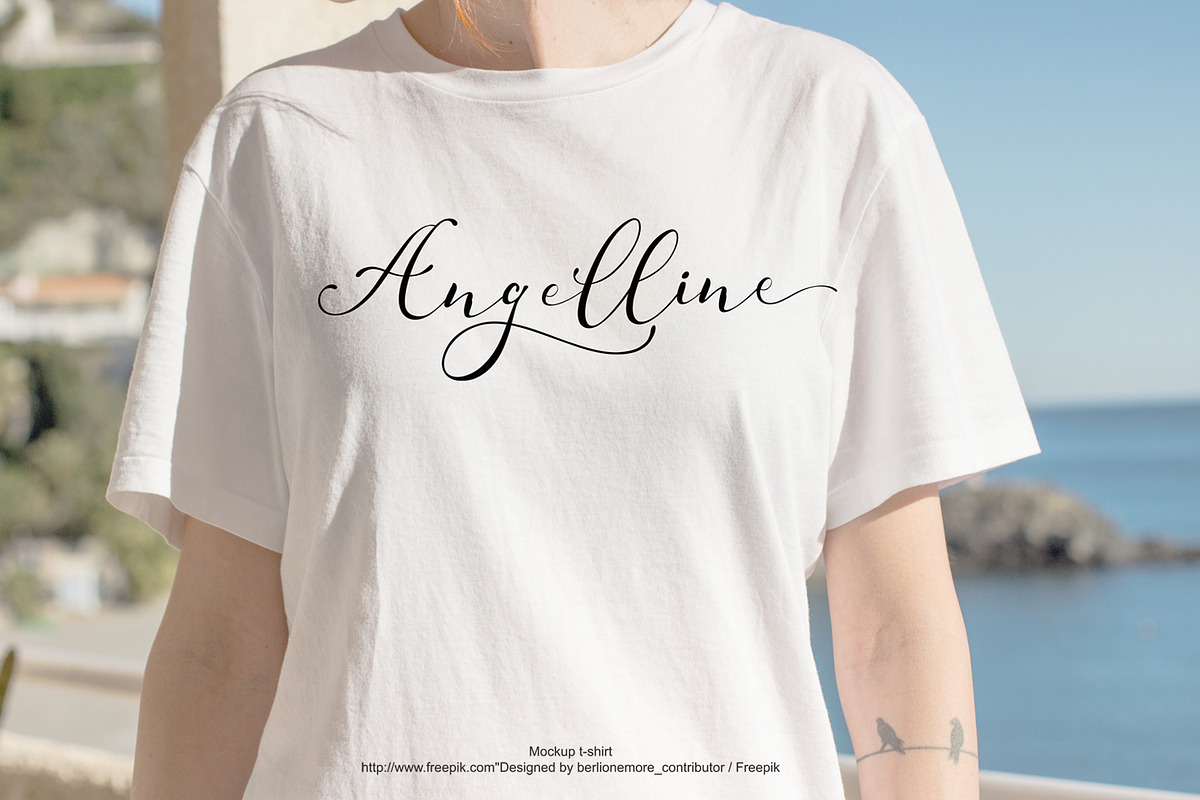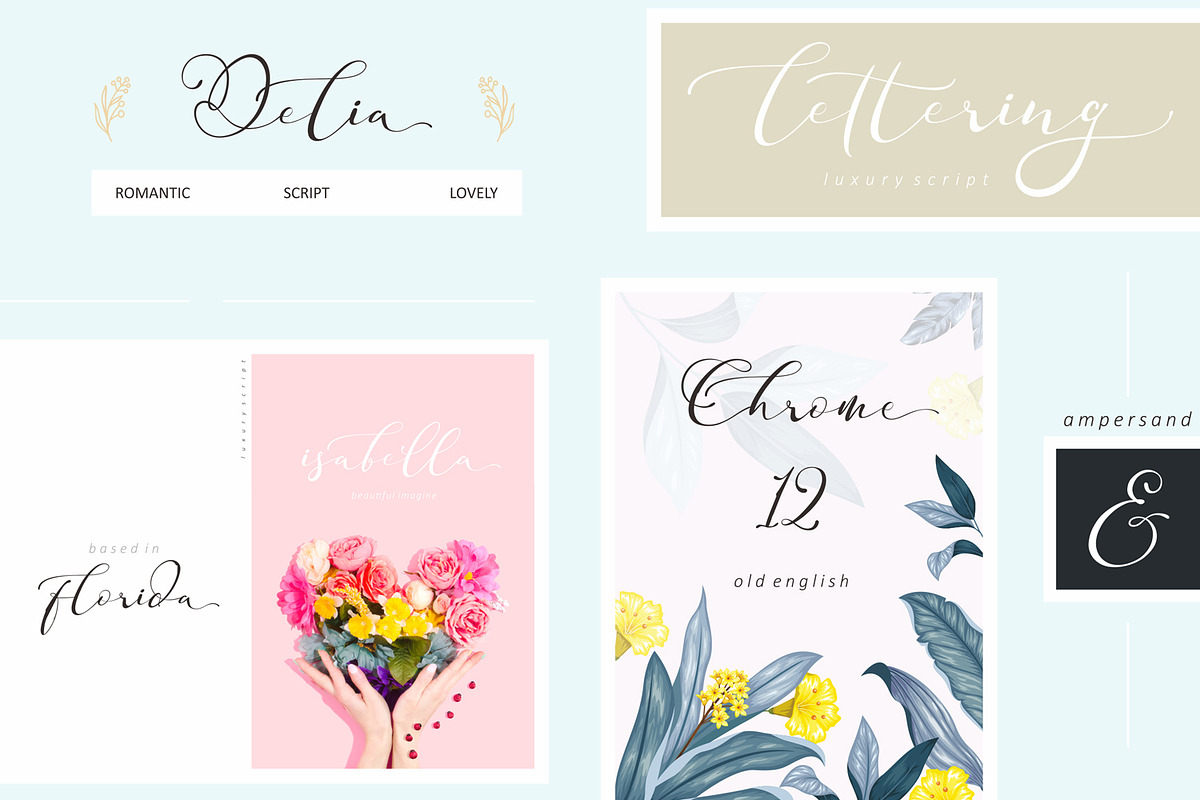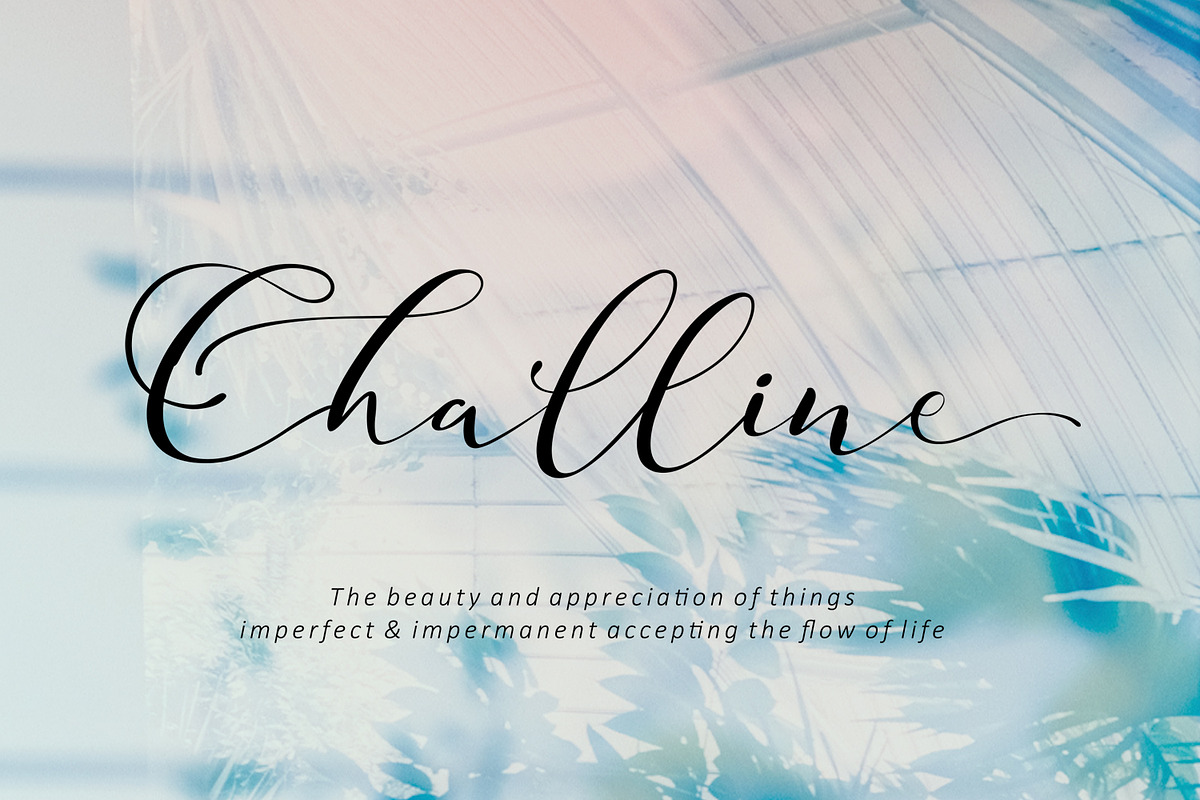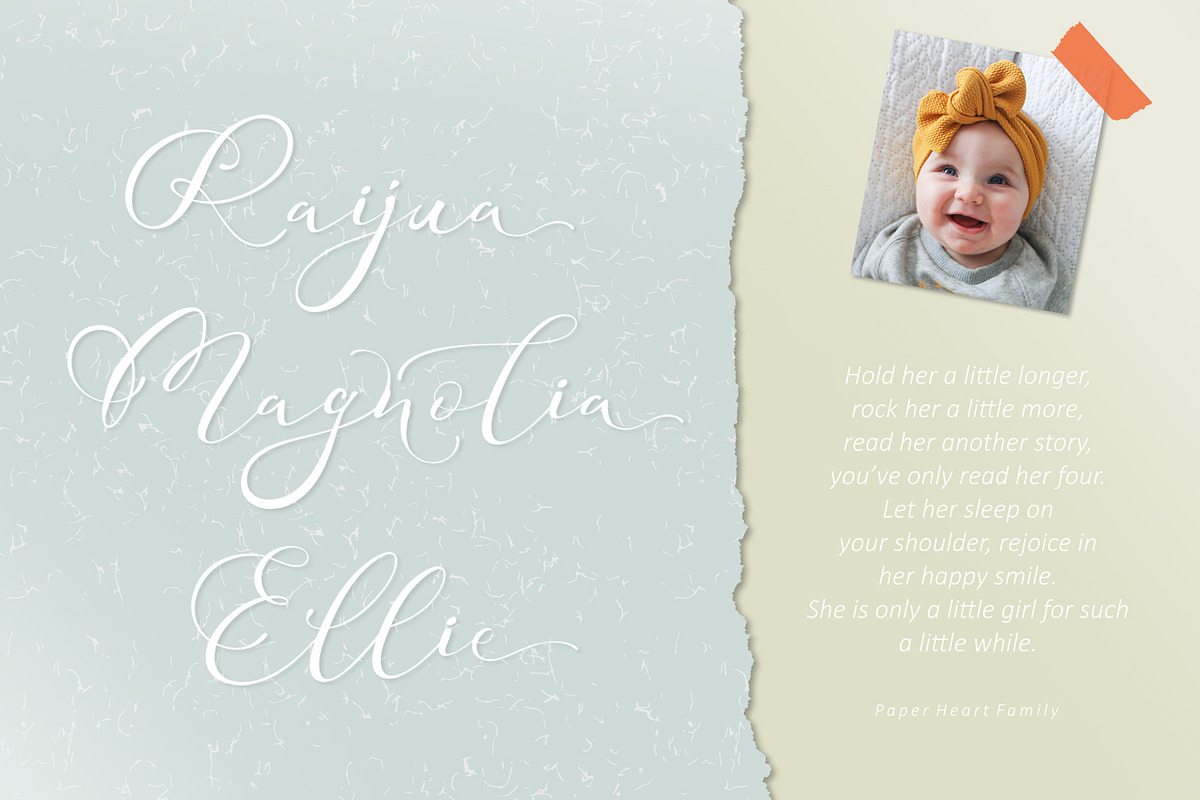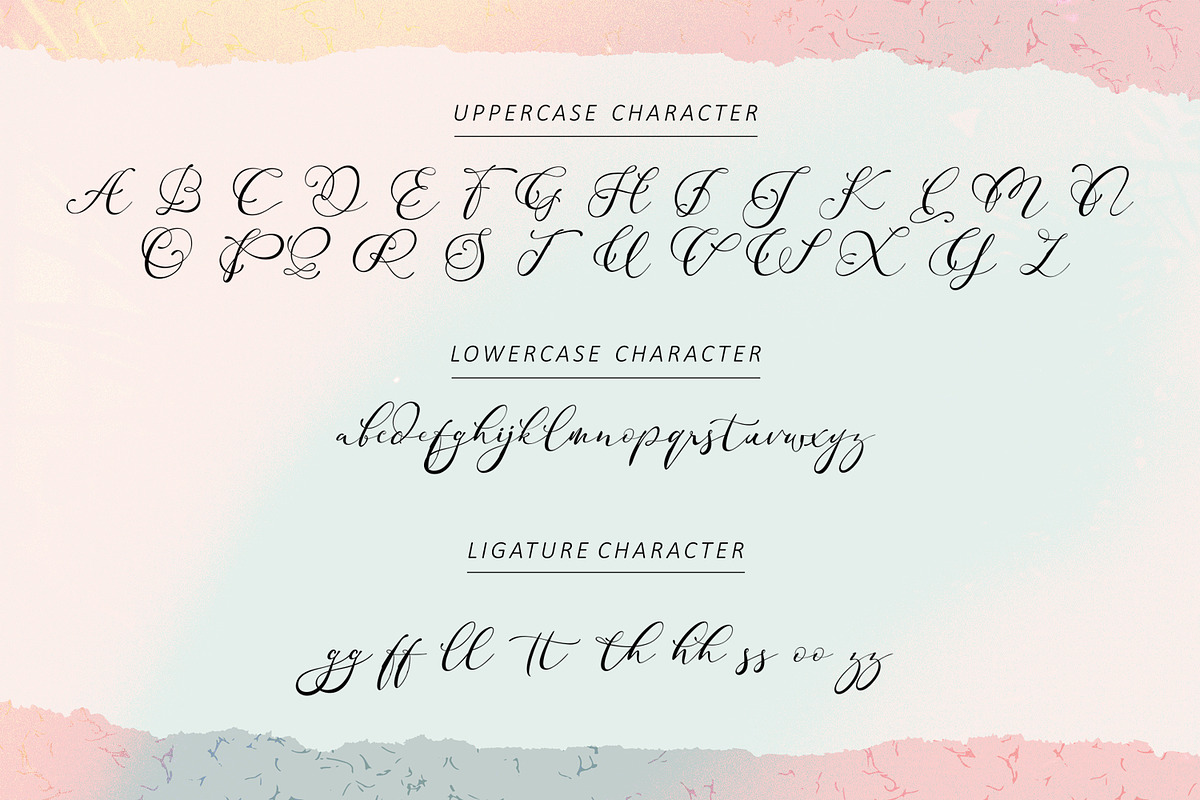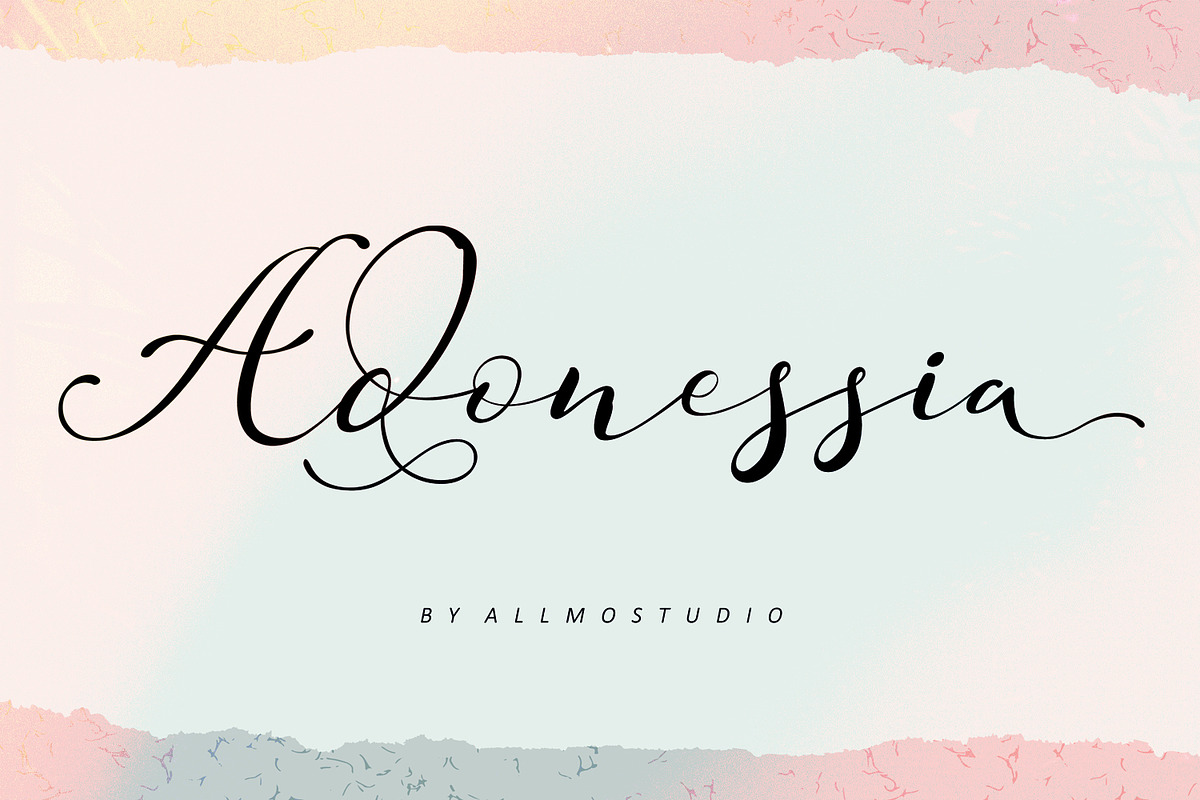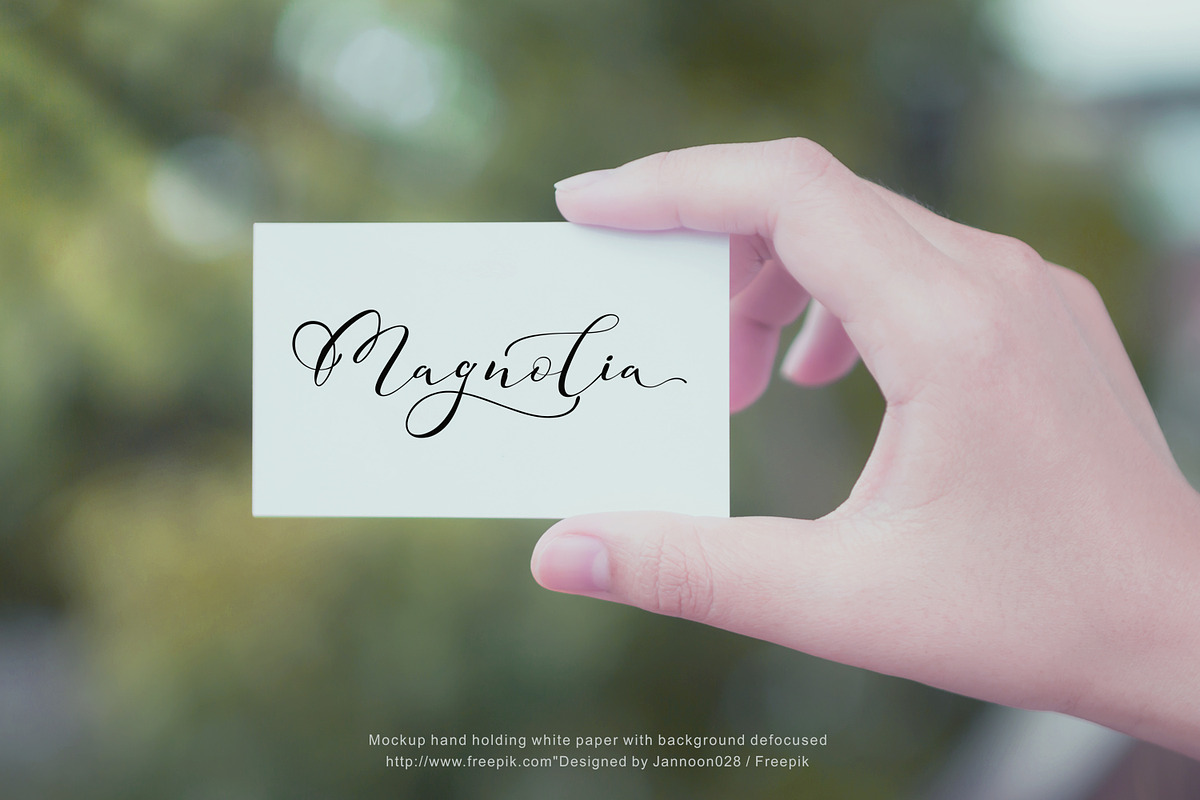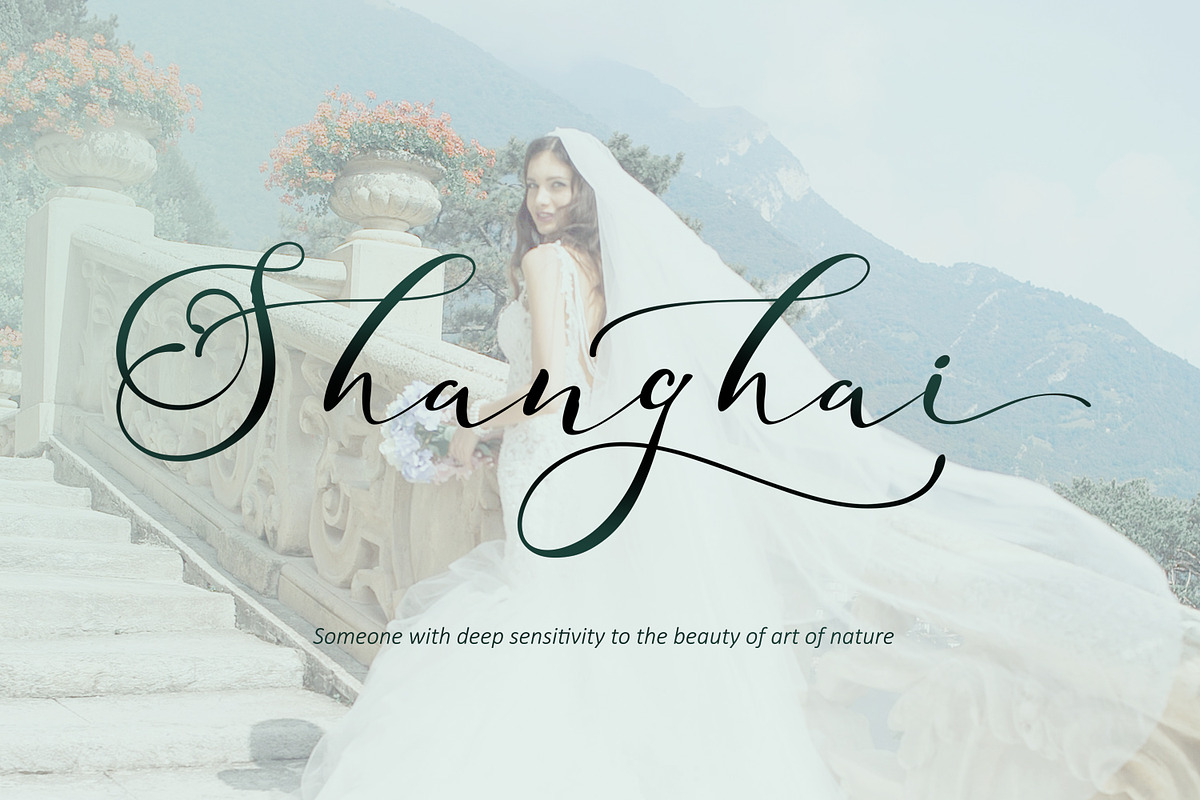
Adonessia Font
This font was designed by handwriting, inspired by fountain pen and classic script. and it has a modern script with unique style. Very suitable for greeting cards, invitations, branding materials, business cards, quotes, posters, and more!
Why Adonessia Font is worth a look
Adonessia Font by Allmostudio fits naturally into Branding, posters, packaging, typography.